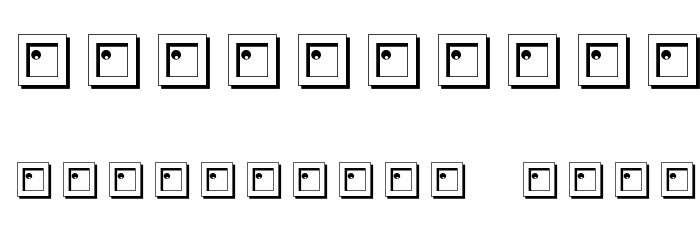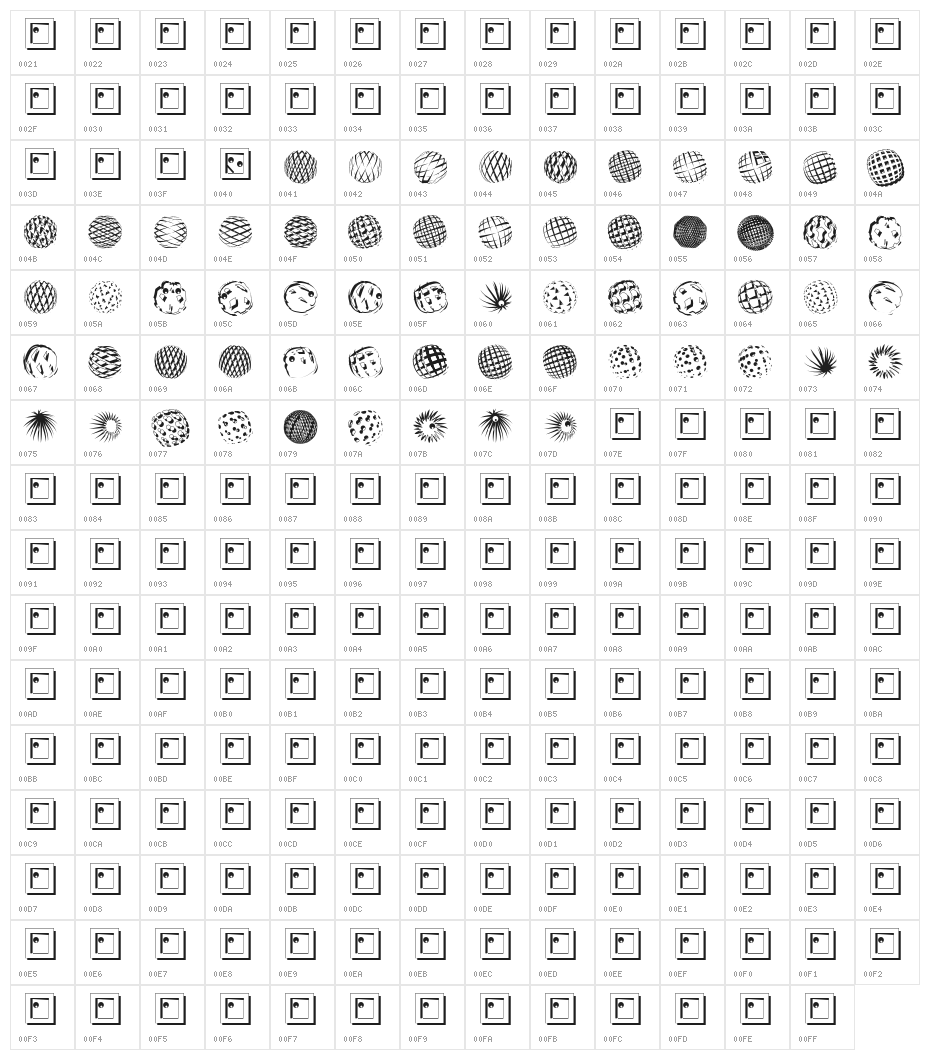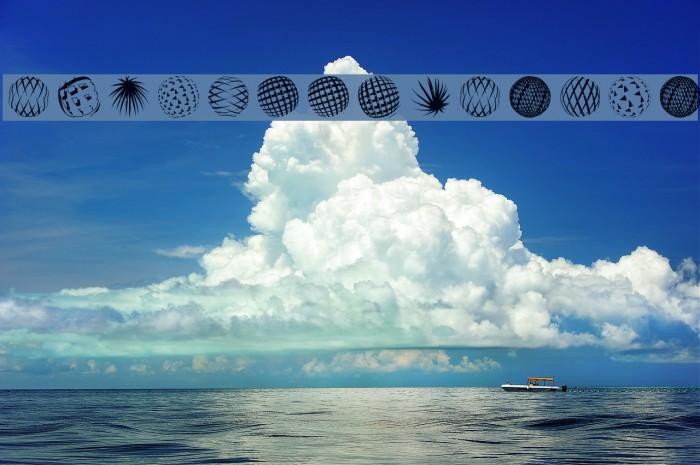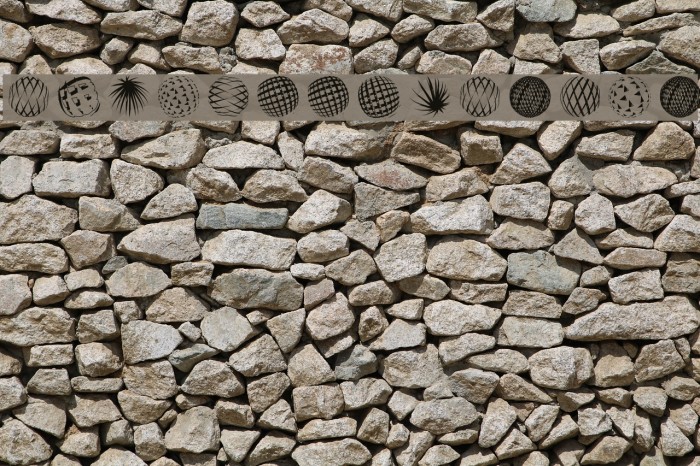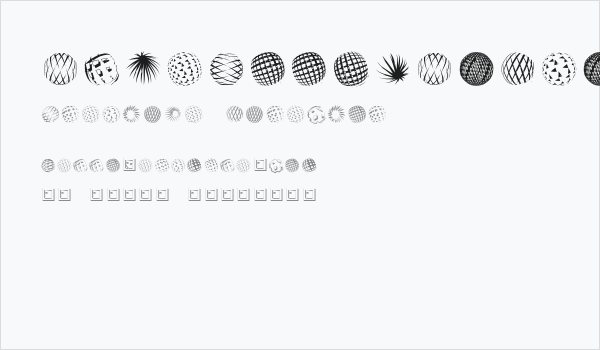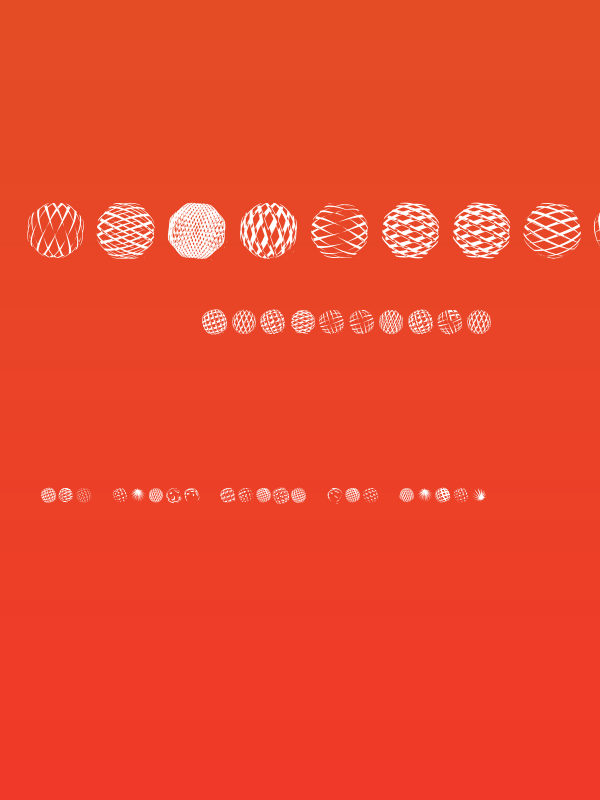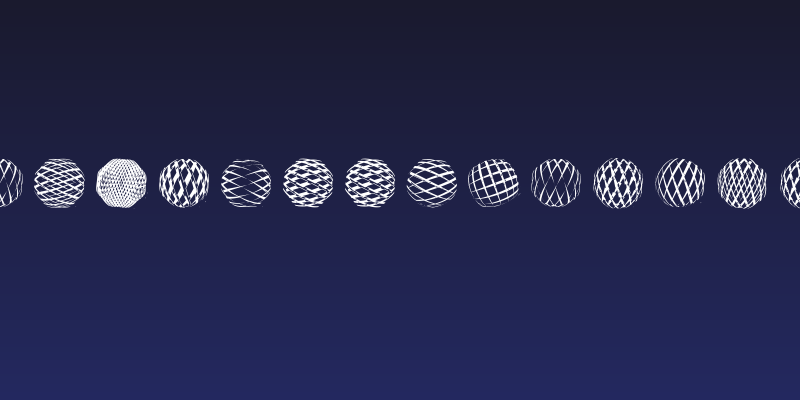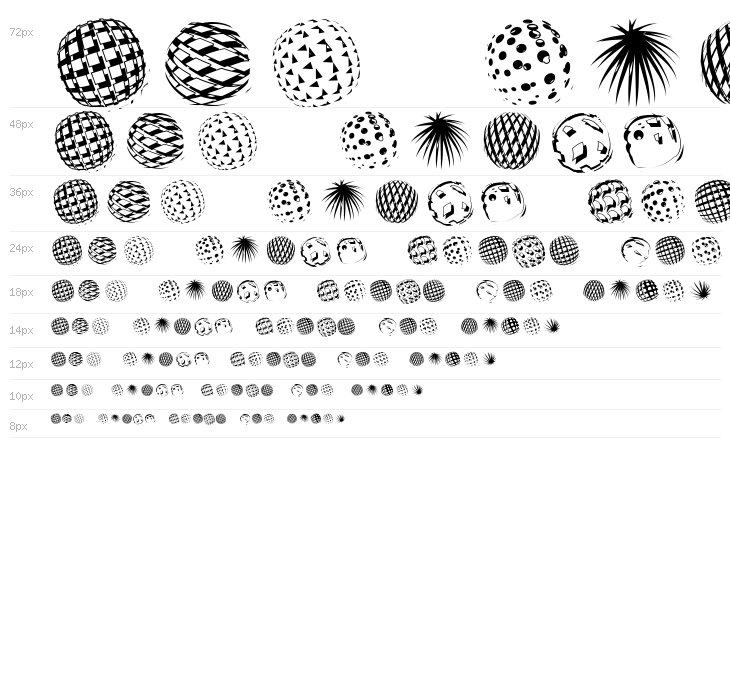
BlueMoonsByDay Font
BlueMoonsByDay Description
A decorative display font featuring abstract, hand-drawn spherical and geometric shapes for each character, with intricate linework and varying patterns. The glyphs are highly stylized and non-traditional, emphasizing visual texture over legibility.
| Overall Style | Decorative, Abstract, Artistic |
| Use Case | Logos, Headlines, Posters, Artistic projects |
| Proposed Projects | Album covers, posters, experimental branding, art installations, editorial design, and creative digital projects. |